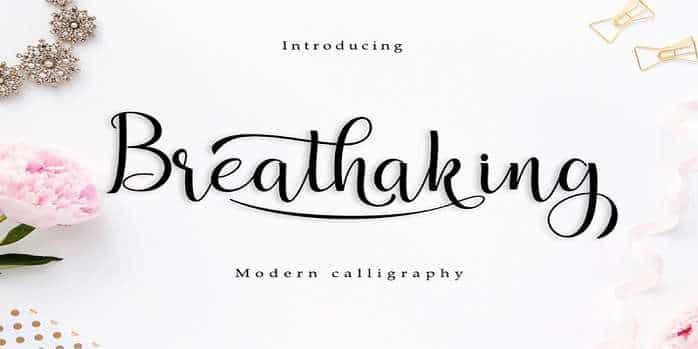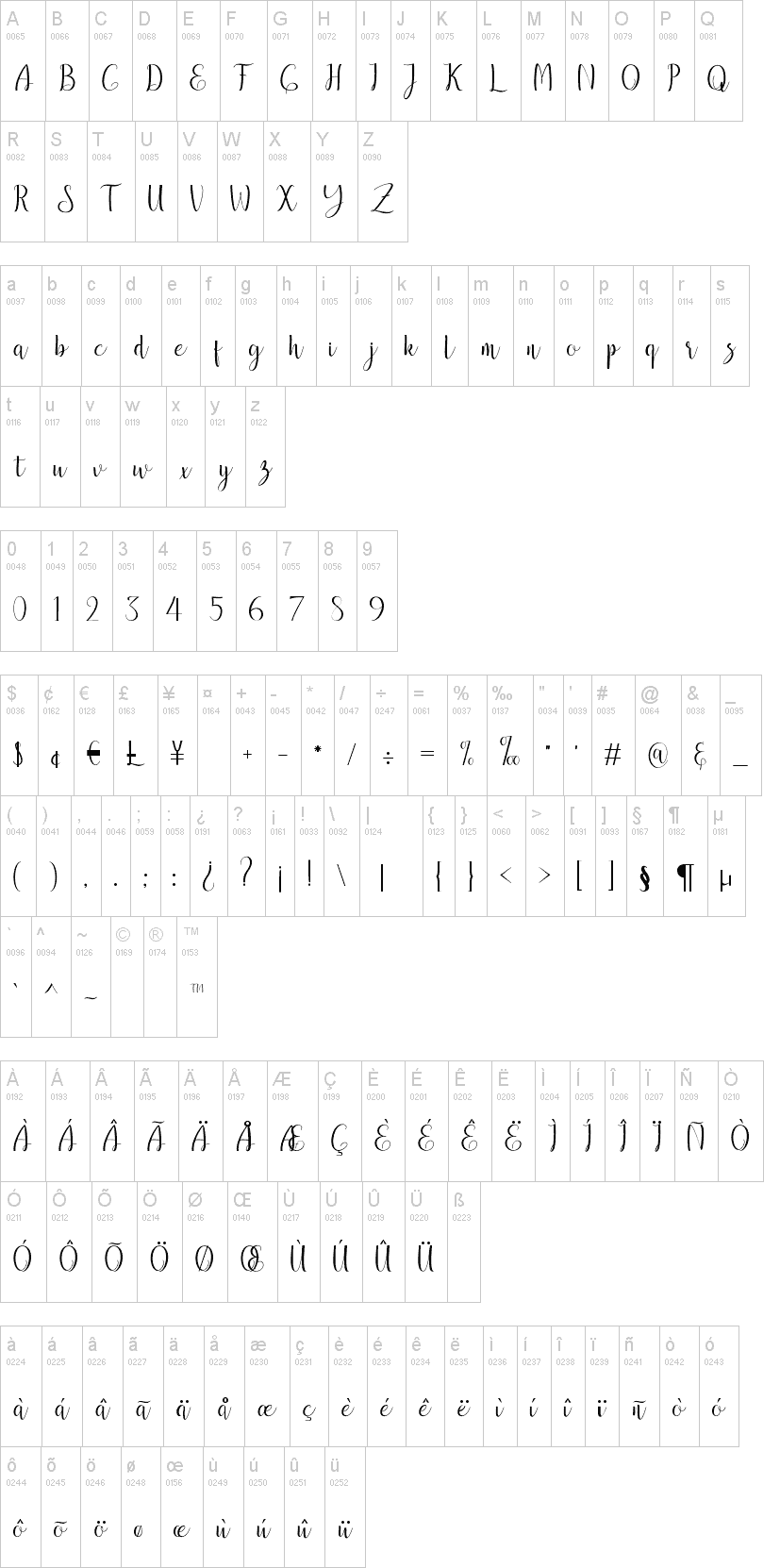
Breathaking is a professional and elegant Calligraphy font which is created by Zulkhairi M Saleh and can be downloaded for free for the personal use. This free version includes all the letters in upper and lower case as well as a few other symbols.